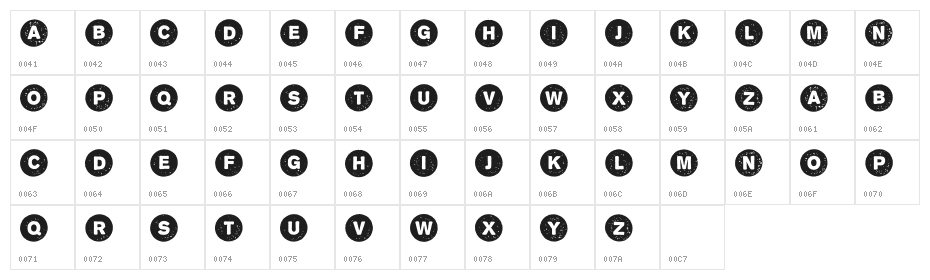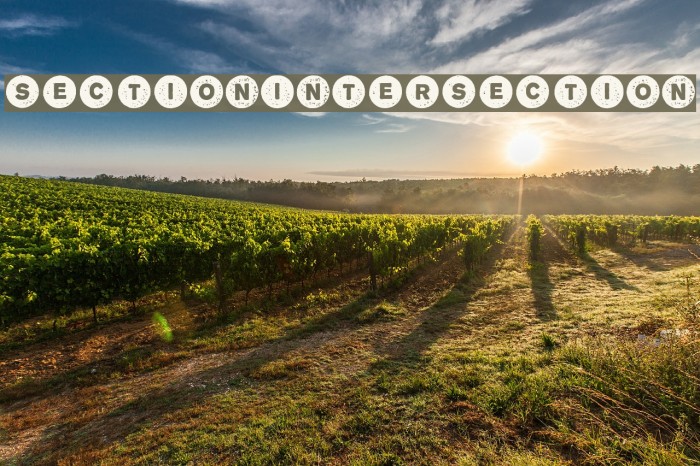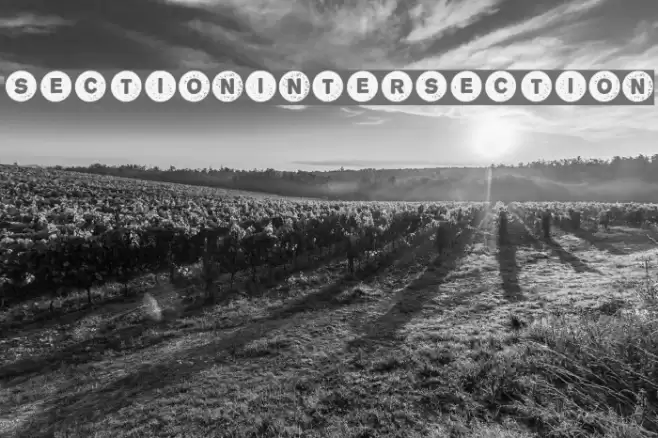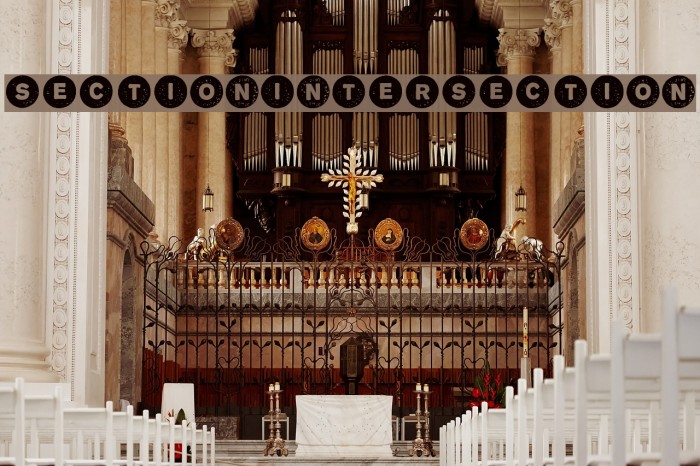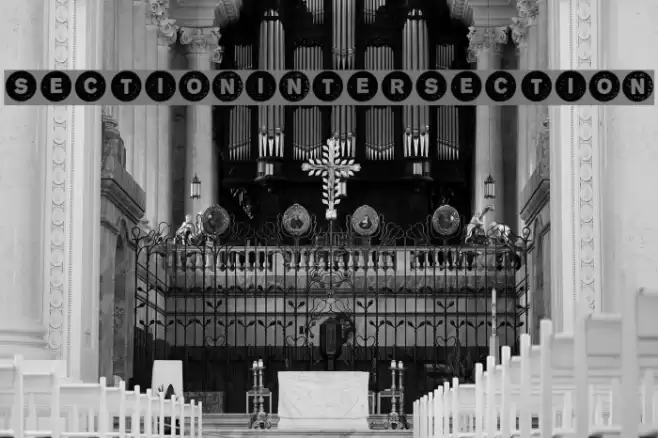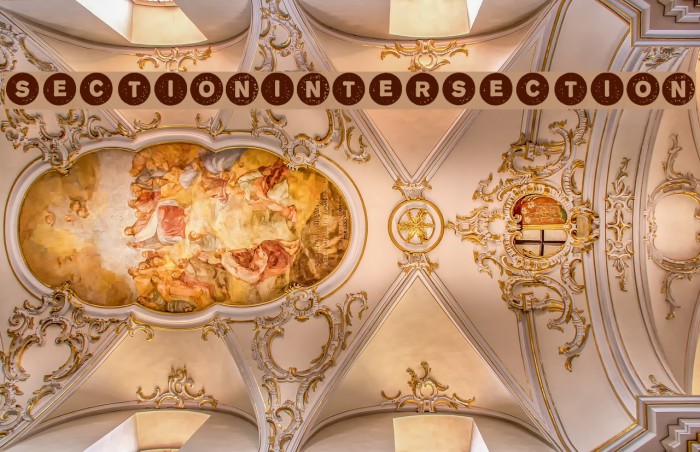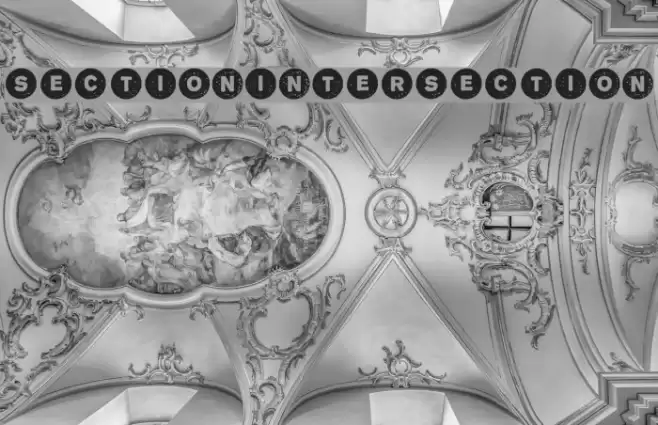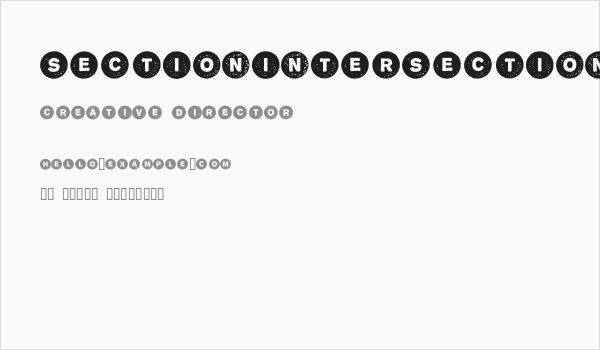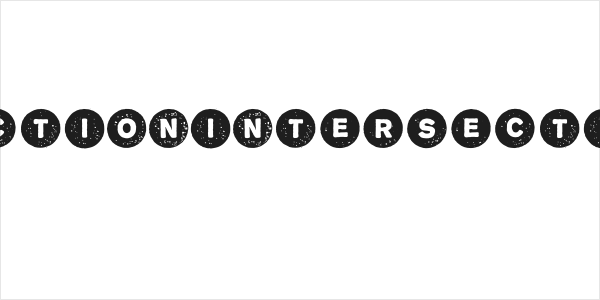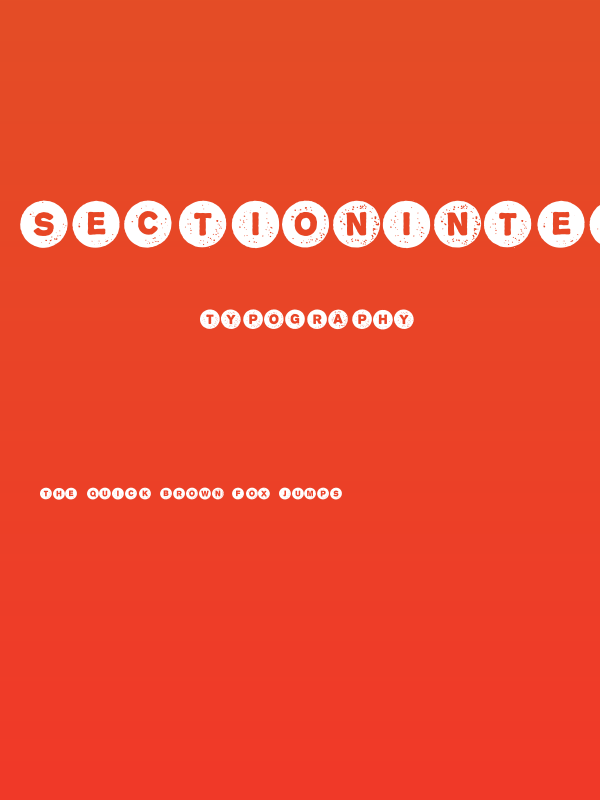
SectionIntersection Font
SectionIntersection Description
This font features bold, uppercase letters enclosed within distressed, circular backgrounds, giving it a rugged and vintage appearance. The letters are white against a black circle, creating a striking contrast that enhances readability. The distressed texture adds a unique, worn-out charm, making it ideal for projects that require a rustic or industrial feel. The consistent circular shape around each letter maintains uniformity, while the distressed effect ensures each character stands out individually.
| Use Case | Logos, Posters, Branding |
| Proposed Projects | Ideal for vintage-themed designs, posters, logos, and branding that require a rugged, industrial look. |